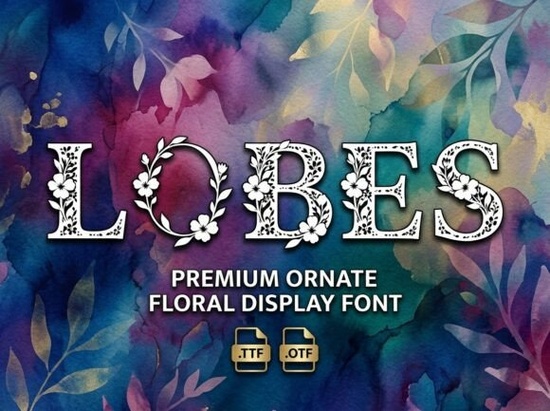
If you're looking for a decorative display font that makes an immediate visual impact, Lobes Font is worth considering especially if your project calls for bold, uppercase-only lettering with personality. Designed to stand out in headlines, logos, or packaging, it leans into artistic flair without feeling gimmicky, making it a solid choice for creators who want their typography to do more than just communicate words.
Unlike standard typefaces that aim for neutrality, Lobes Font embraces its role as a focal point. Every character features subtle sculptural details and confident strokes that give it a handcrafted yet polished look. It’s not meant for body text (and doesn’t include lowercase letters by design), but that’s actually part of its strength: it forces intentional use in contexts where typography needs to command attention.
Who is this font best suited for?
Lobes Font shines in projects where visual identity matters most:
- Logo designers creating marks for boutique brands, cafes, or artisanal products
- Print-on-demand sellers designing t-shirt quotes, tote bags, or wall art with short, punchy phrases
- Small business owners crafting social media banners, product labels, or event signage
- Crafters and hobbyists personalizing invitations, greeting cards, or home decor with a distinctive typographic touch
Because it’s all-caps, it works especially well with short words or initials think “BOUTIQUE,” “EST. 2024,” or monogram-style designs. Pair it with clean sans-serifs or minimal scripts for contrast, and you’ll avoid overwhelming your layout.
How does it compare to other decorative fonts?
Among Creative Fabrica’s collection of display typefaces, Lobes Font holds its own with a balance of elegance and edge. While something like the Royal Font leans into ornate, vintage-inspired detailing, Lobes offers a more contemporary, almost architectural presence. It’s less about swirls and flourishes and more about bold form and rhythm.
If you’ve browsed the Lobes Font page already, you’ve likely noticed how it performs in mockups on coffee sleeves, apparel, and minimalist posters. That versatility across physical and digital mediums is a good sign it’s been tested in real-world applications, not just pretty screenshots.
Practical tips for using it effectively
To get the most out of this font without overdoing it:
- Keep text short. Stick to 1–5 words max for headlines or logos.
- Adjust tracking (letter spacing). Slightly increased spacing often enhances readability and lets each glyph breathe.
- Avoid pairing with other decorative fonts. Let Lobes be the star; support it with neutral companions like Helvetica, Inter, or Lora.
- Use high-contrast colors. Black on white, deep navy on cream, or metallic gold on dark backgrounds all highlight its details beautifully.
And always preview your design at actual size what looks striking at 72pt might lose clarity when scaled down for a small tag or sticker.
Before you commit, consider whether your project truly needs a statement font. If you’re after subtlety or long-form readability, this isn’t the right tool. But if you want a confident, artistic uppercase typeface that feels both modern and timeless, Lobes Font delivers exactly that without unnecessary complexity.